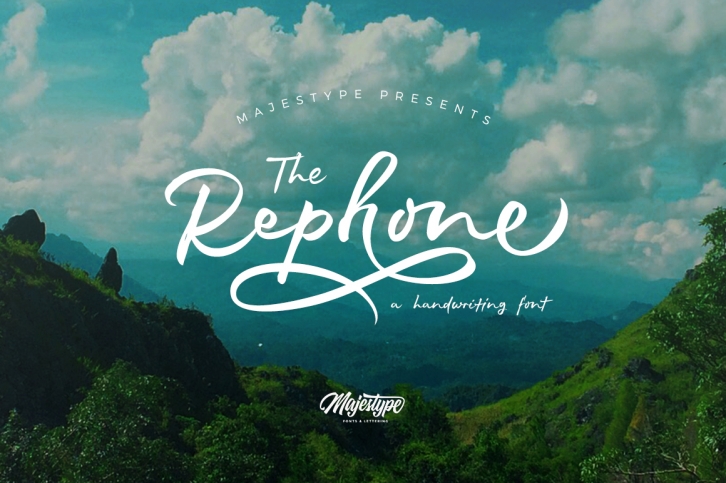
Rephone is a gorgeous font that was realeased on December 22, 2016. The font can be used in many style contexts and design environments. Perfect for invitations, magazines, websites, logos, and more! It was designed by Majestype and the file size is 13.55 MB. Thanks for checking out this font!